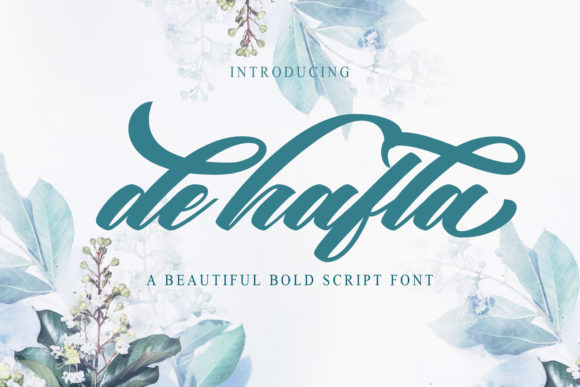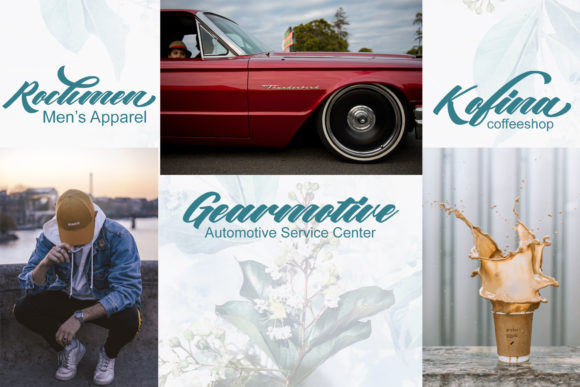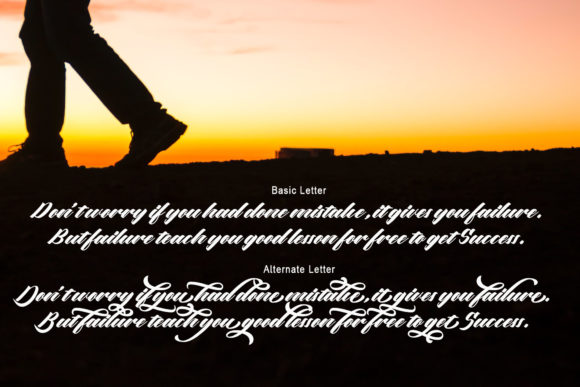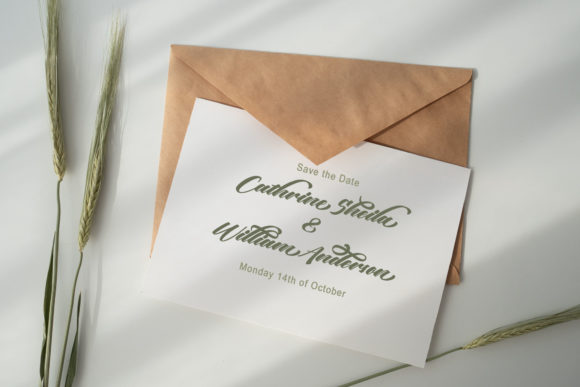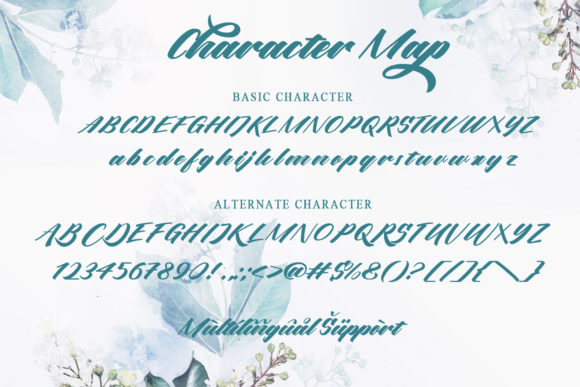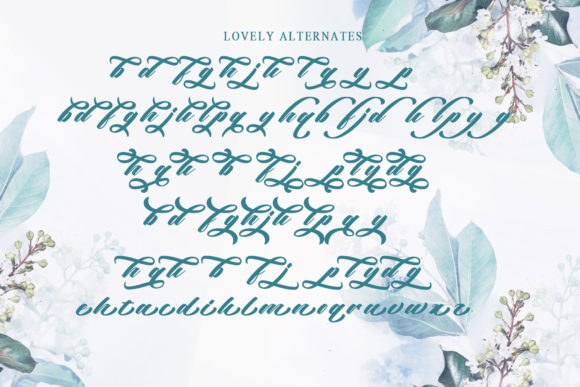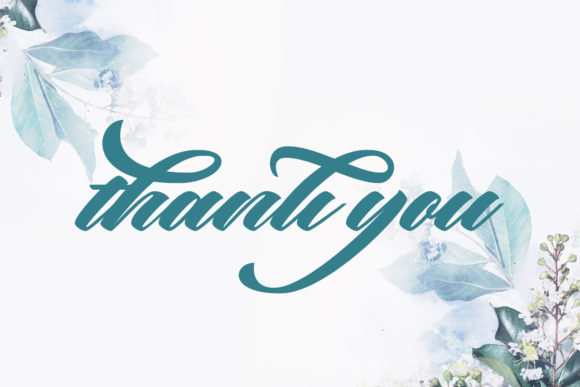
De Hafla Font
About De Hafla Font
De Hafla is beautiful bold script typeface featuring flowing characters. It is perfectly suited for a wide variety of projects!